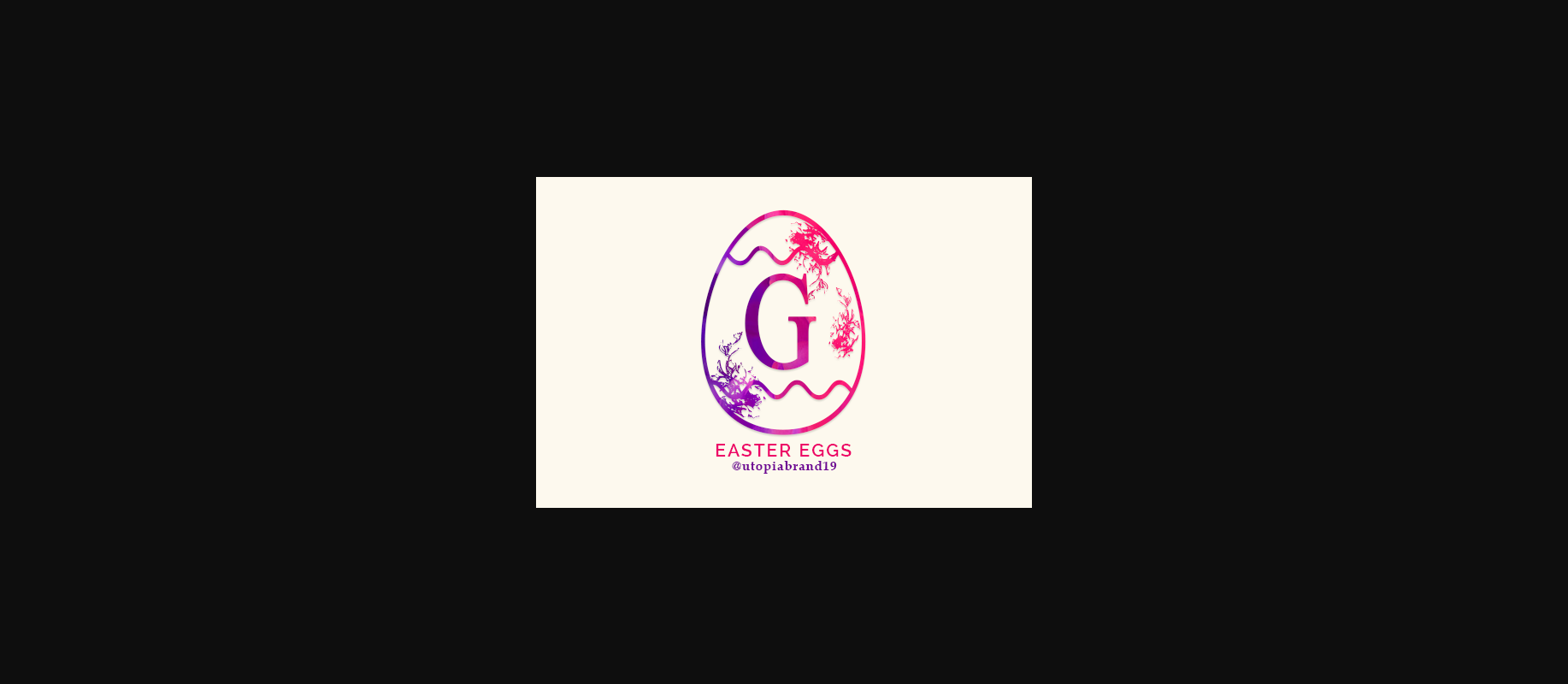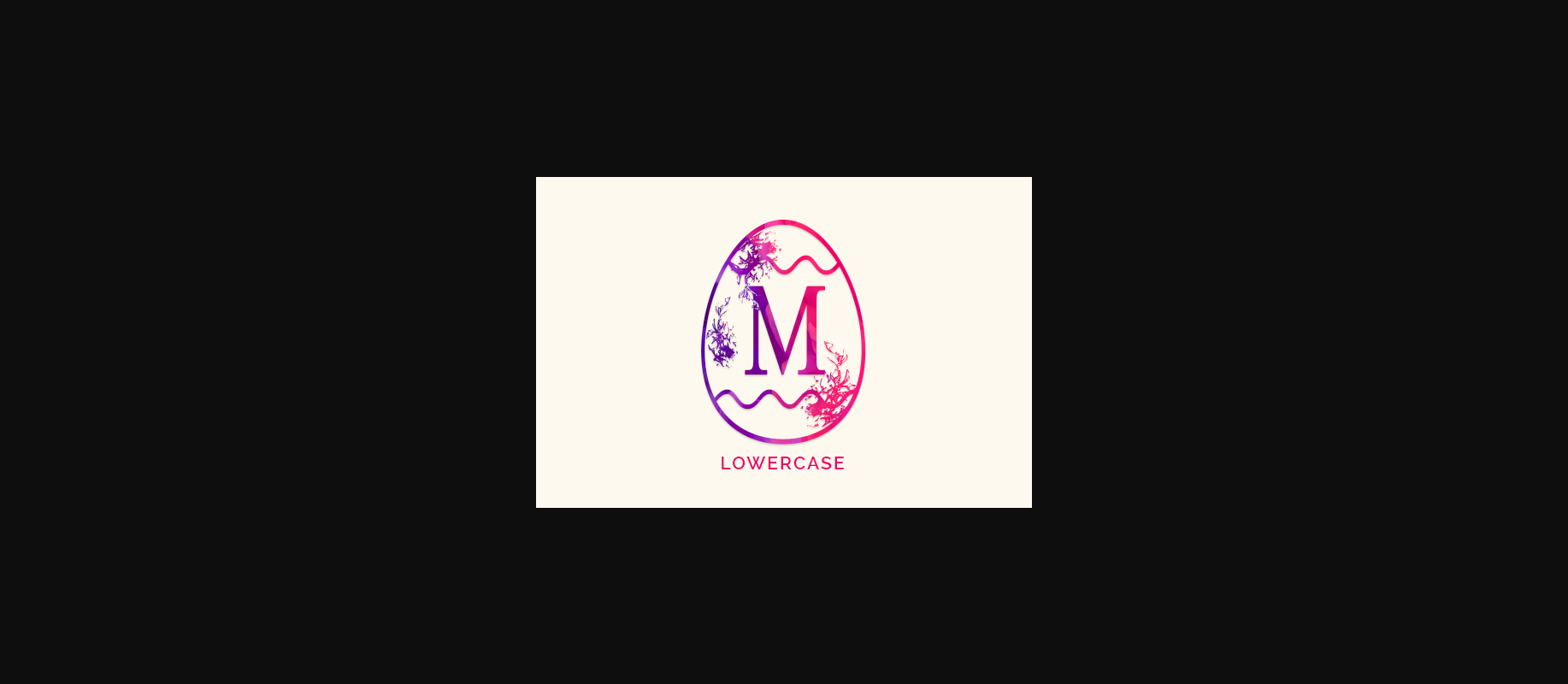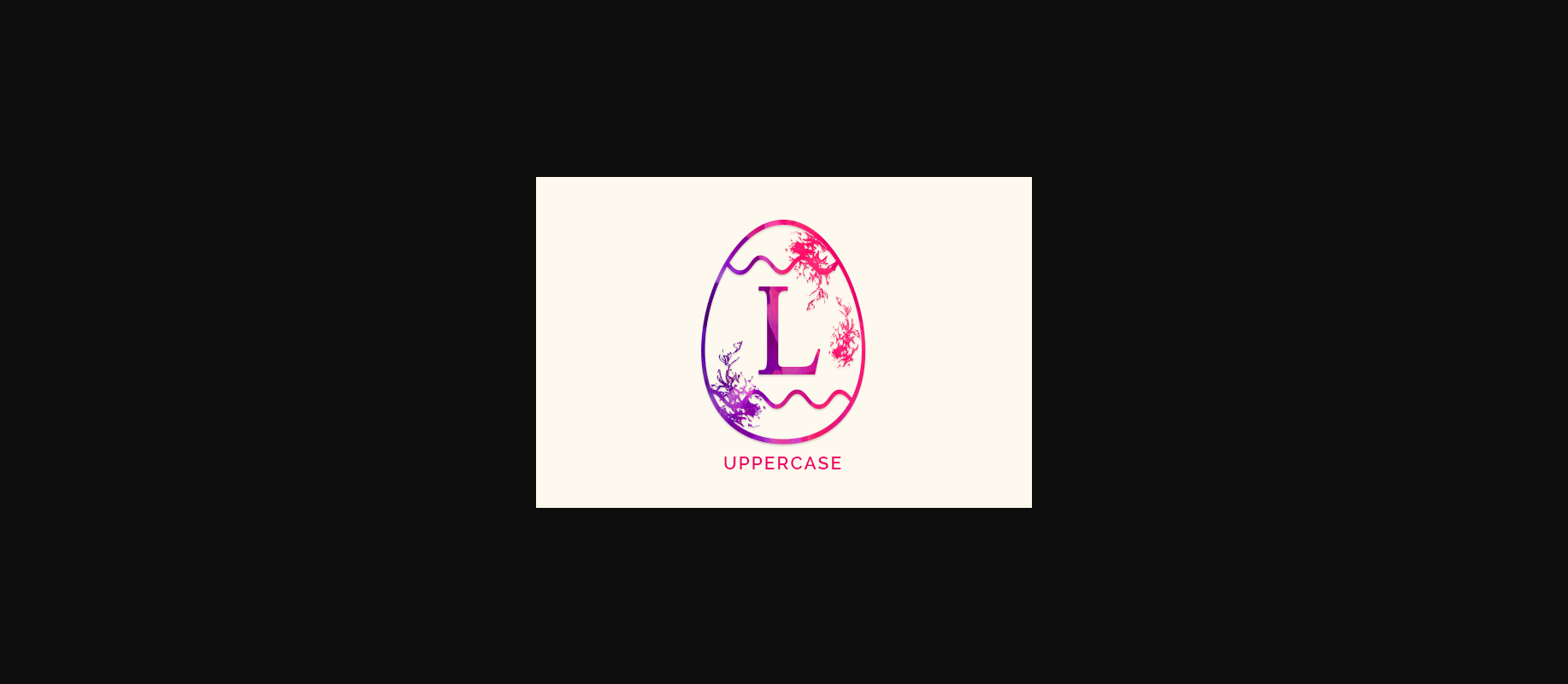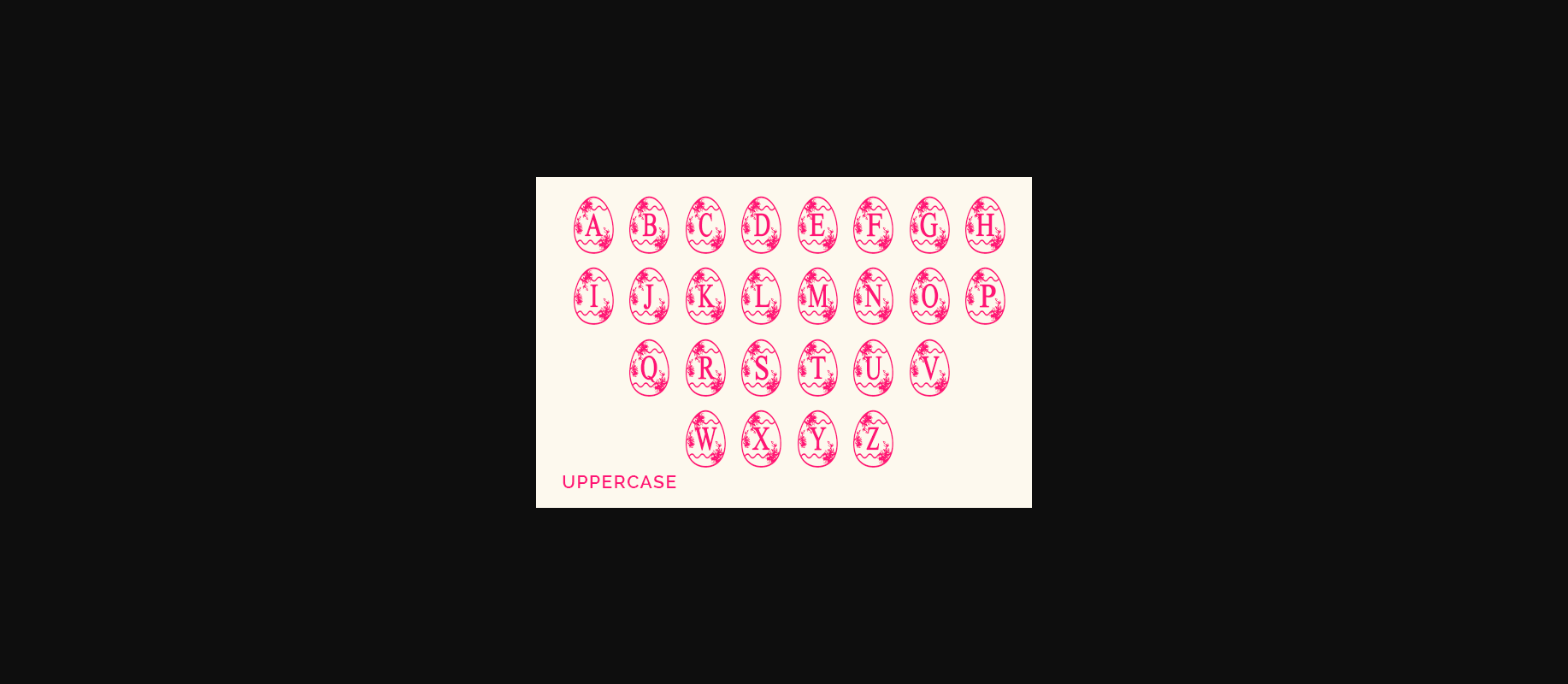
Easter Eggs Font
About Easter Eggs Font
Easter Eggs is a sweet decorative font, ideal for Easter celebrations. Fall in love with its authentic feel and use it to create gorgeous wedding invitations, beautiful stationary art, eye-catching social media posts, and cute greeting cards.